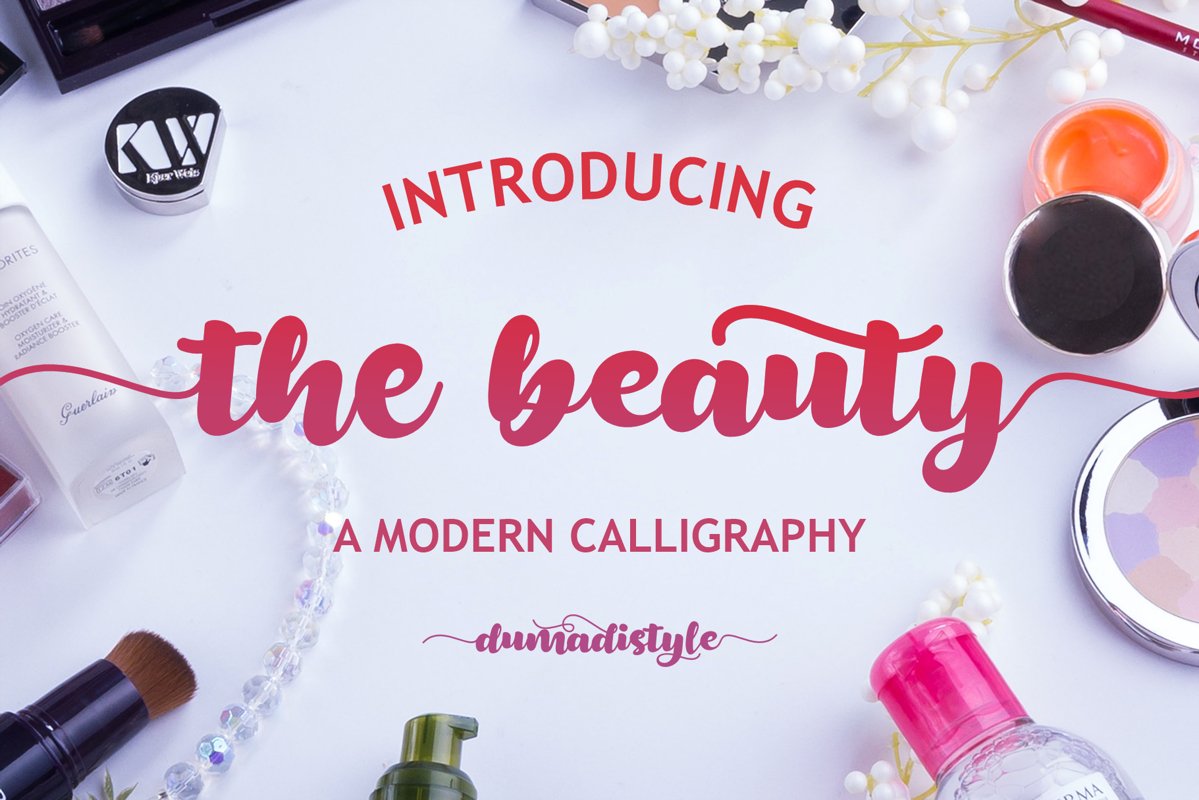
The Beauty
the beauty
Allow me to introduce The Beauty
A collection of modern handmade calligraphy fonts designed to enhance your design.
This bold script flows naturally with automatic standards and amazing ligature.
the beauty is suitable for those of you who are designing in beauty projects, skincare, logos, and other branding.